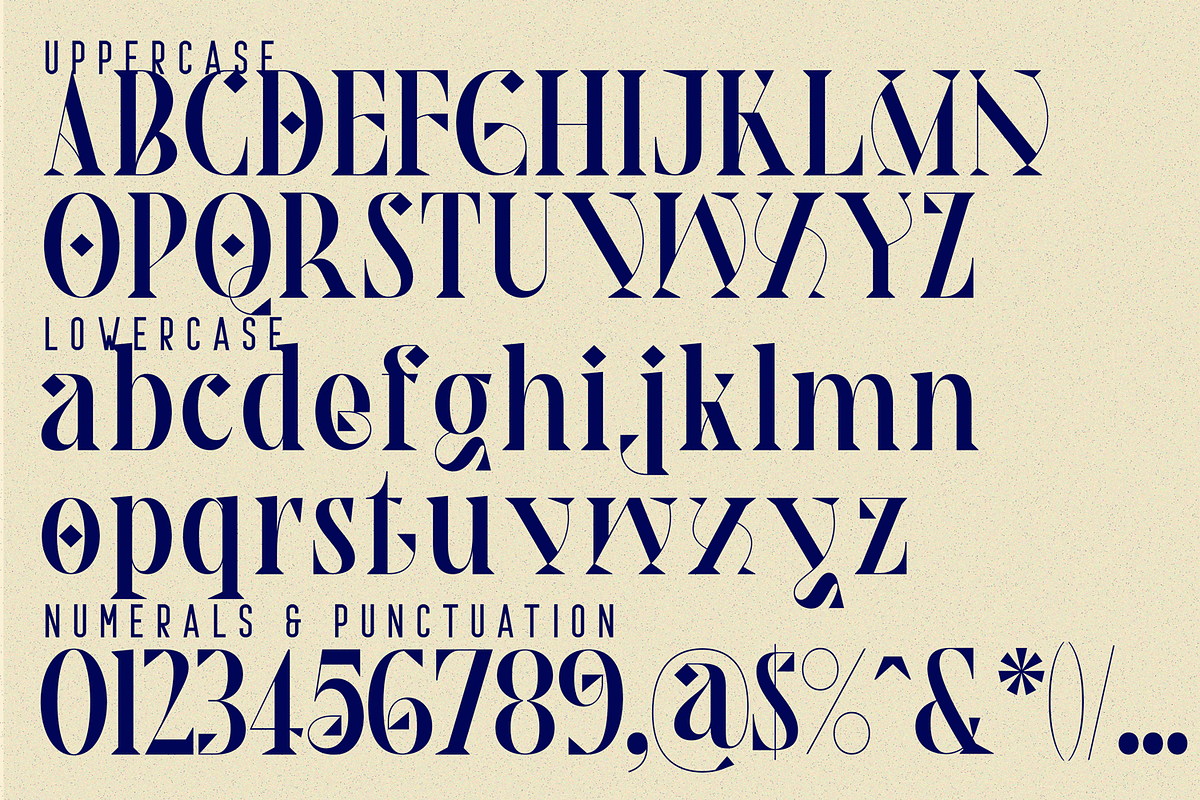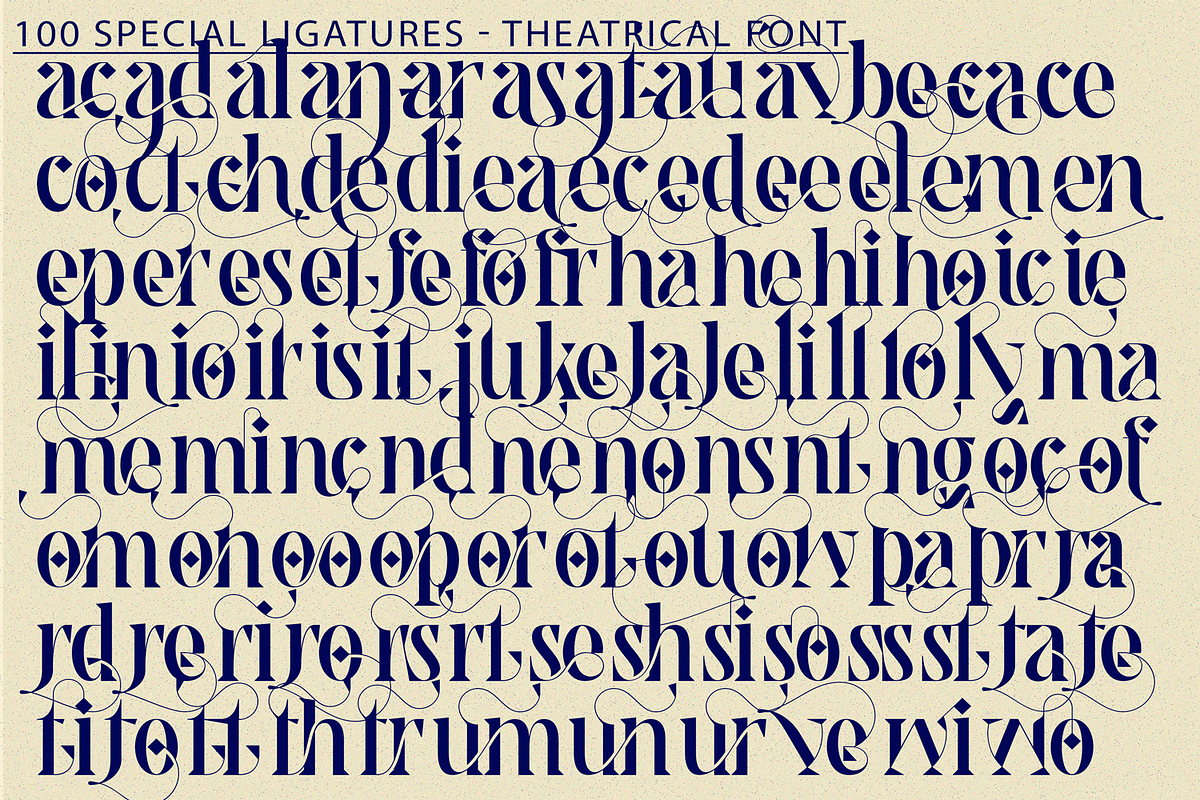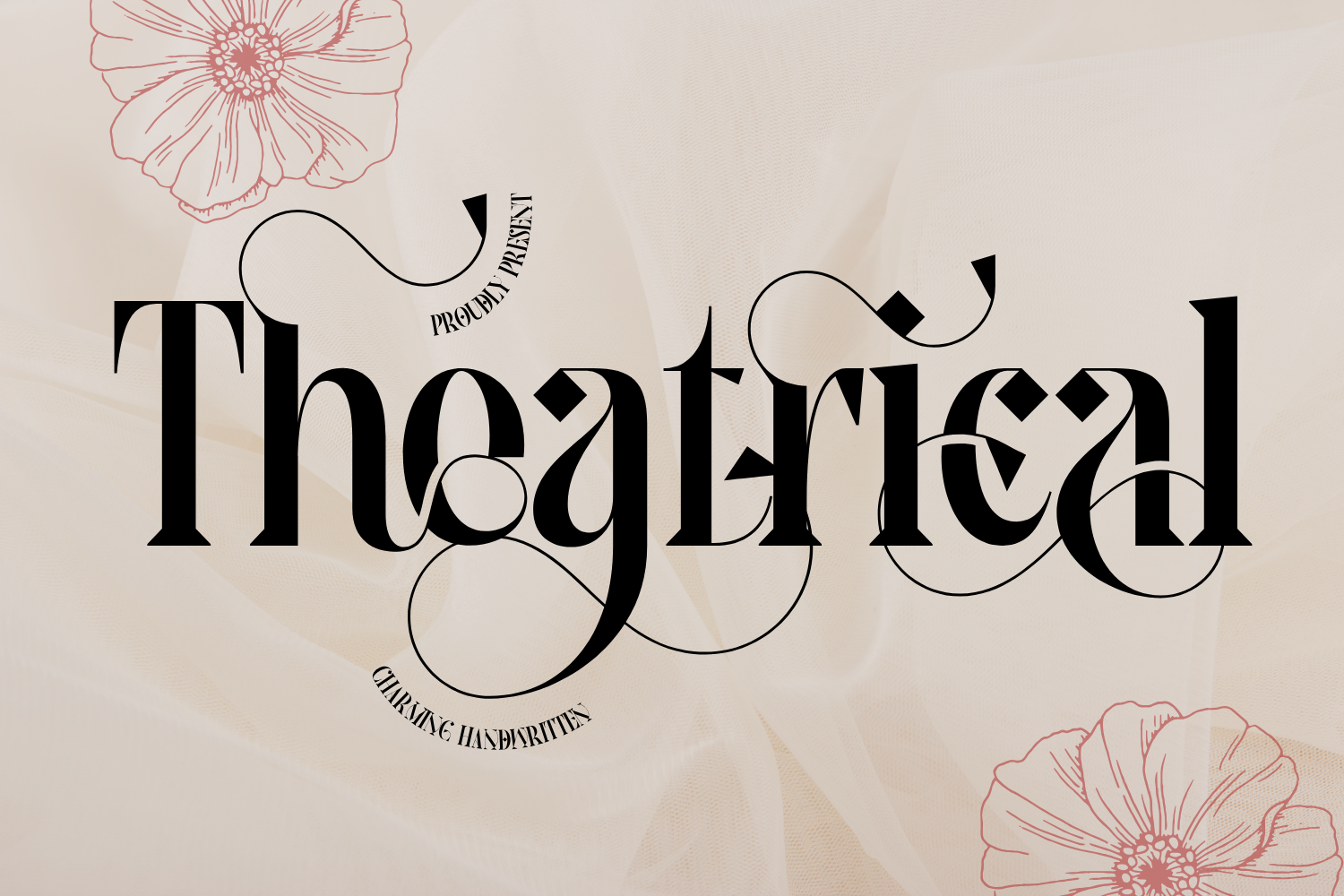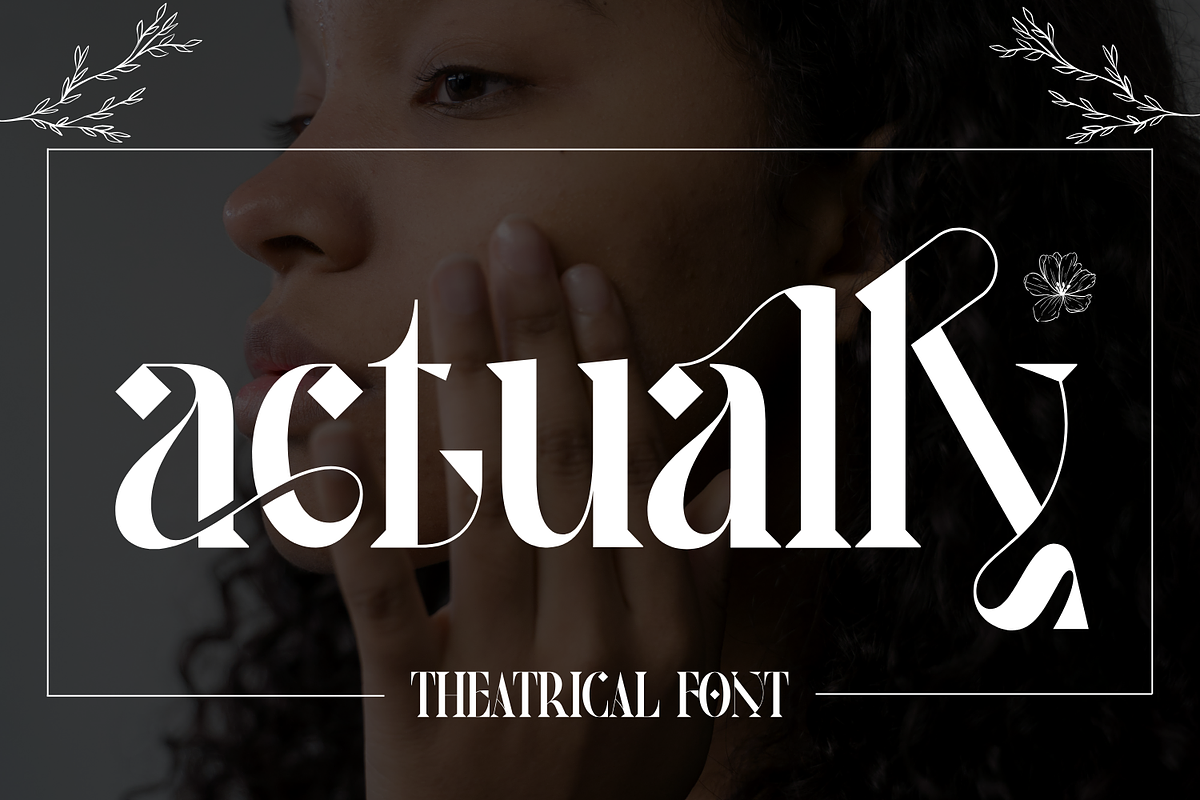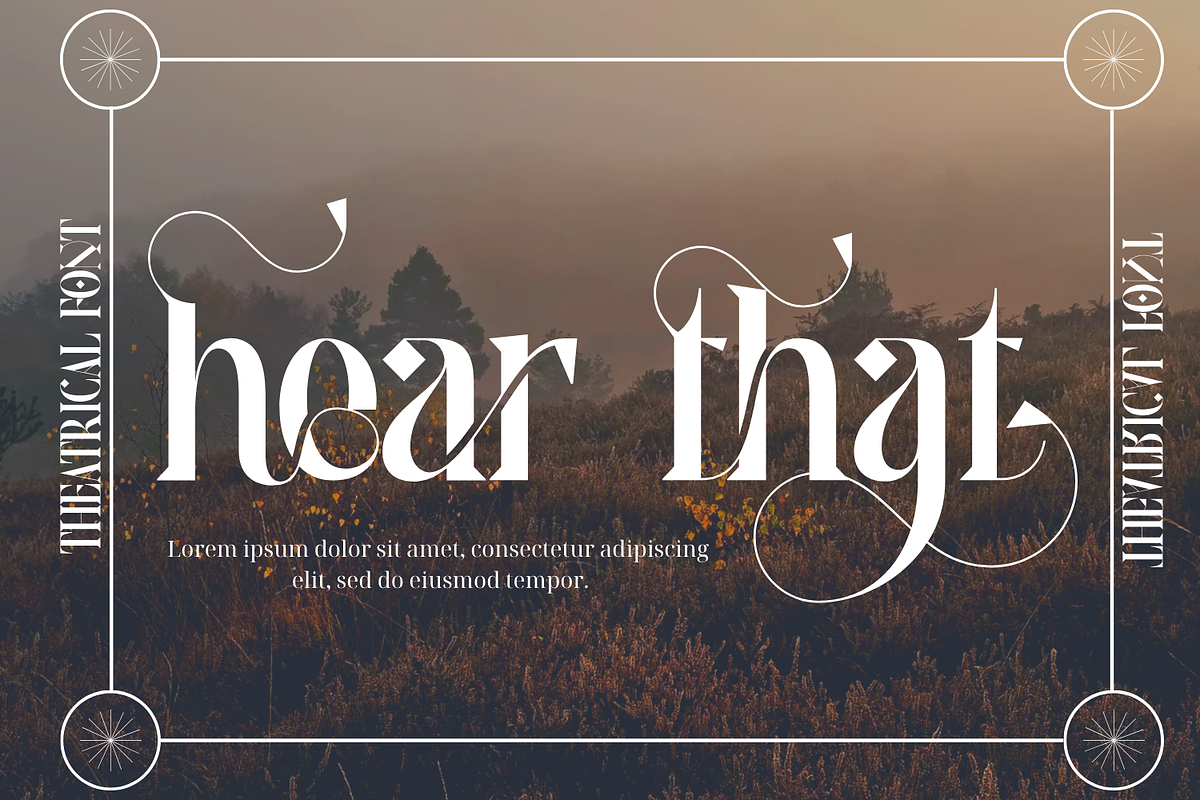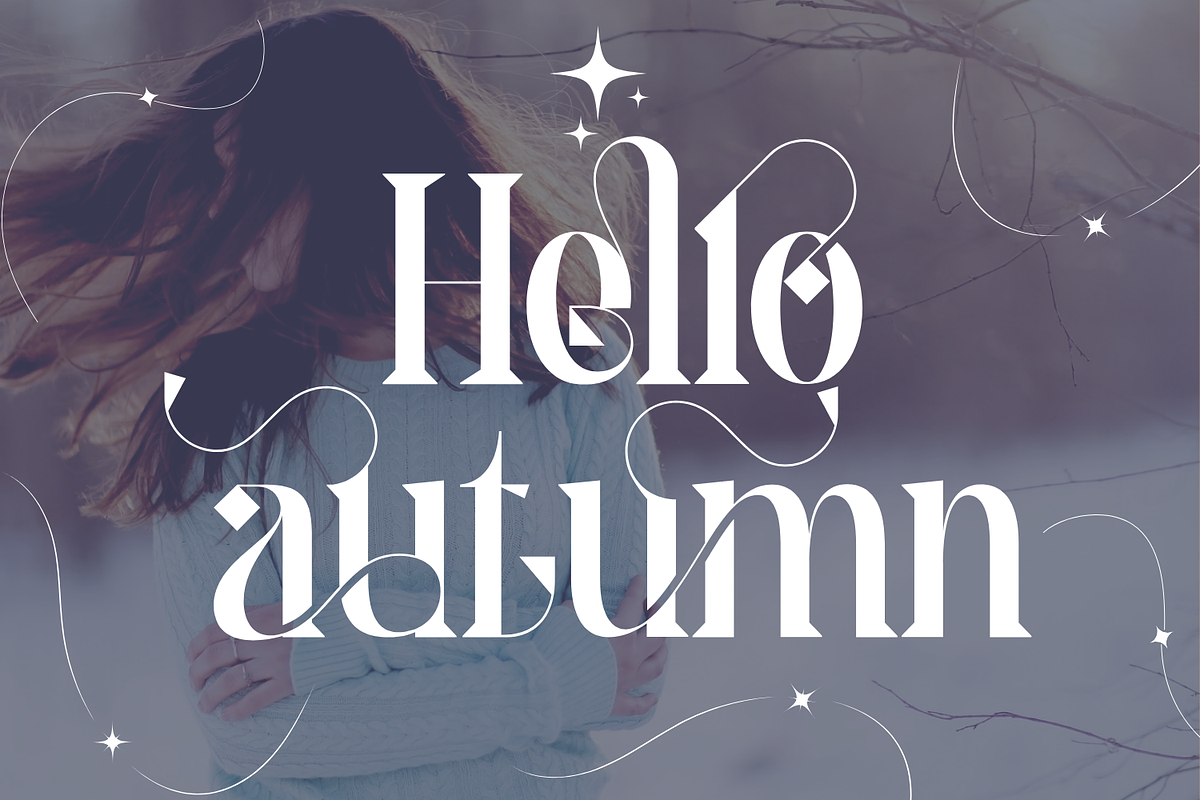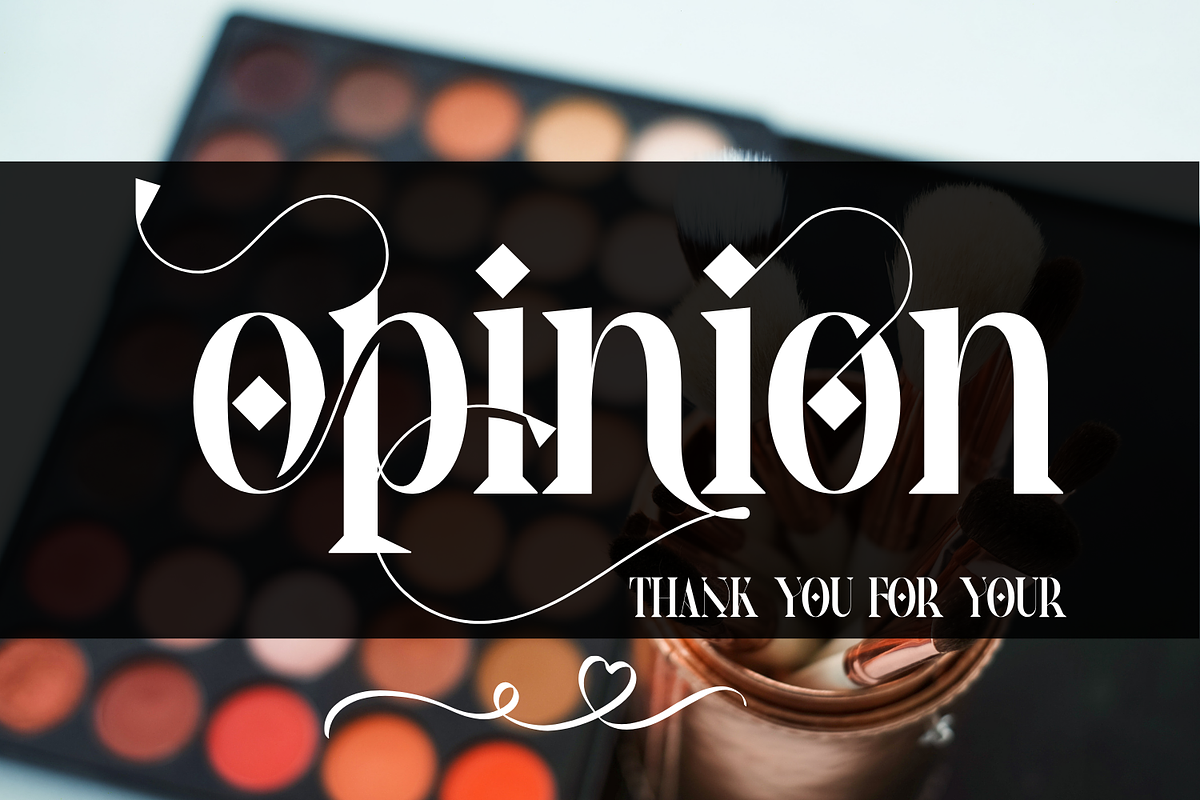
Theatrical Elegant - Ligatures Font
Theatrical Elegant - Ligatures Font is a high-contrast serif display font infused with theatrical elegance and contemporary flair. It draws inspiration from editorial typography and calligraphy, merging sharp serif cuts with lavish swashes and artistic letterforms that demand attention.
This typeface gracefully dances between precision and drama — making it perfect for magazine headlines, luxury branding, packaging, or fashion campaigns. Every character is crafted with refined detail, from dagger-like serifs to unexpected diagonal spurs and elaborate curves.
- Uppercase & Lowercase alphabets
- Approx. 100 special ligatures for ornate combinations
- Numerals and full punctuation
- Accented multilingual characters
- Flourishing alternates for stylistic impact
About 100 ligatures combined with Stylistic Alternates Font:
ac ad al an ar as at au av be ca ce ch co ct de di ea ec ed ee el em en ep er es et fe fo fr ge ha he hi ho ie ic il in io ir is it ju ke la le li ll lo ly ma me mi nc nd ne ng no nt ns oc of om on oo op or ot ou ow pa pr ra rd re ri ro rs rt se sh si so ss st ta te th ti to tr tt um un ur ve wi wo